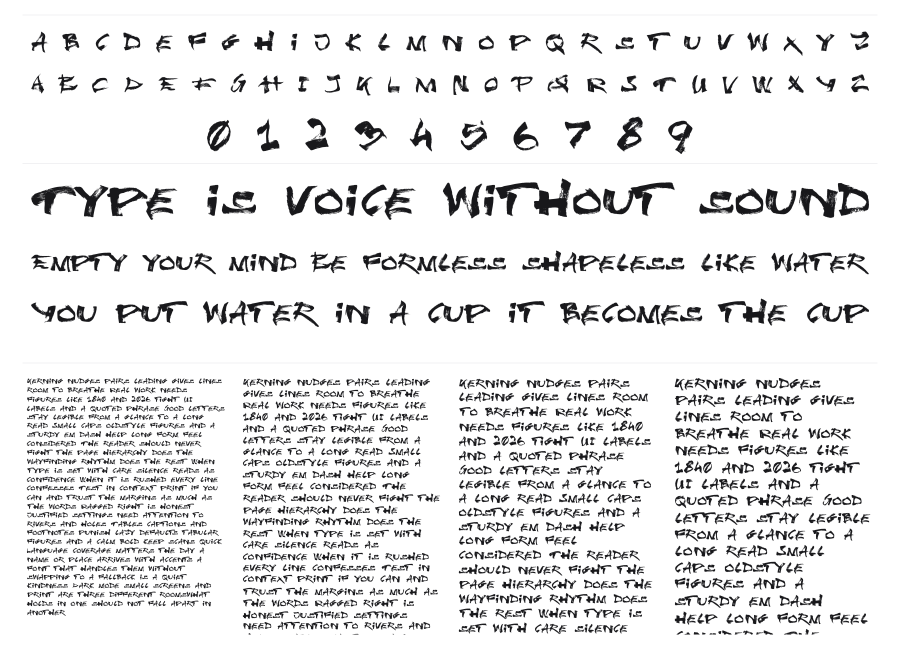
Undergrunge Tornado
Undergrunge Tornado is a bold, uppercase display face from Roland Huse Design that looks like it survived a sandstorm. The letterforms are heavy and textured, with rough, chewed-up edges that give every word a raw, physical presence. Built for posters, headlines, and short-run text where you want type that feels aggressive and unapologetically worn down.